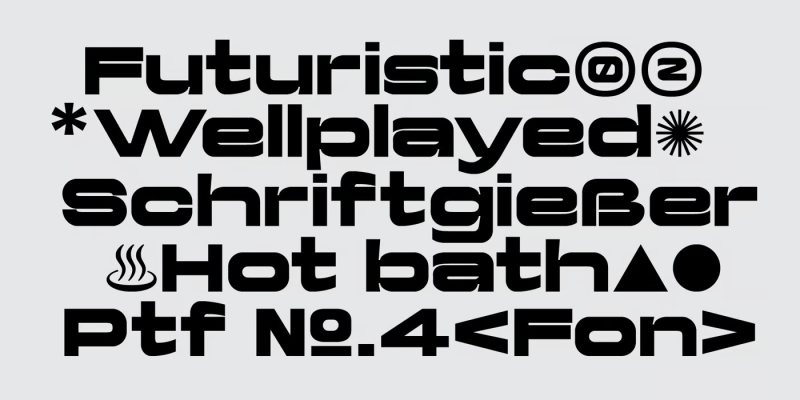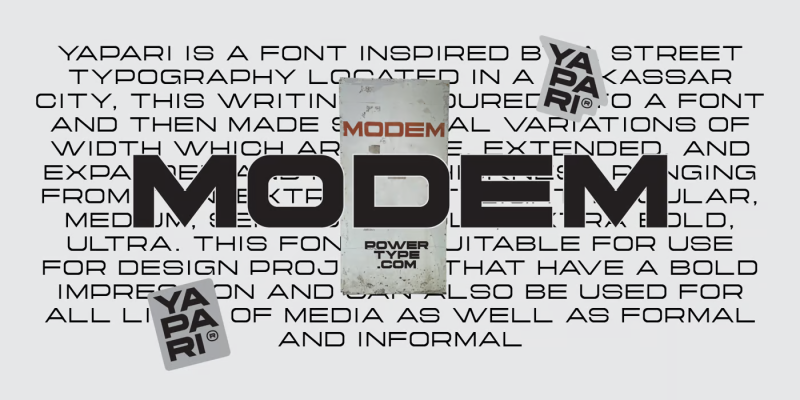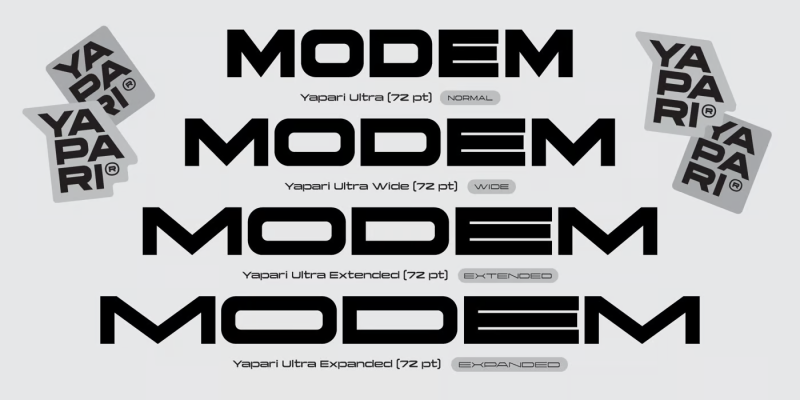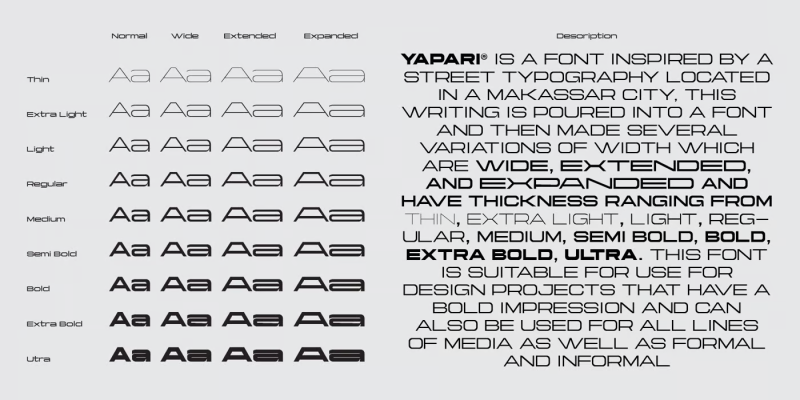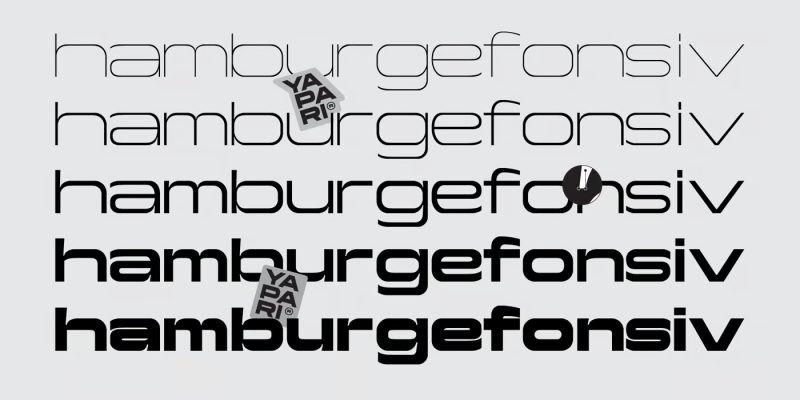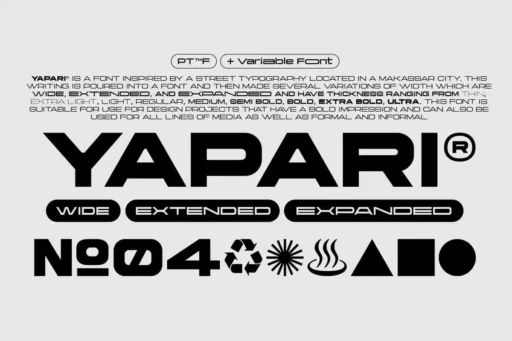
Yapari Font
Yapari is a bold sans serif font family by Power Type which takes its inspiration from the street typography of Makassar city in 2005. This specific handwriting has adap…
Yapari is a bold sans serif font family by Power Type which takes its inspiration from the street typography of Makassar city in 2005. This specific handwriting has adapted into a font that has a number of different widths in the form of Wide, Extended and Expanded which gives the font a stretched and lively feel. The font style comes in variety of styles with different intensities which include Thin, Extra Light, Light, Regular, Medium, Semi Bold, Bold, Extra Bold and Ultra.
Yapari font is suitable for the design projects where the goal is to express the idea in the most secondary way, you can use it in any type of media, formal or informal. That particular style brings uniqueness and intensity to every piece of work that you create.
Where Yapari Font works best
Yapari Font stays legible at small sizes, which makes it a strong choice for navigation, buttons and dashboards in web design and app interfaces.
Clean sans serifs like Yapari Font are the default language of SaaS, fintech and product branding.
What is Yapari Font good for?